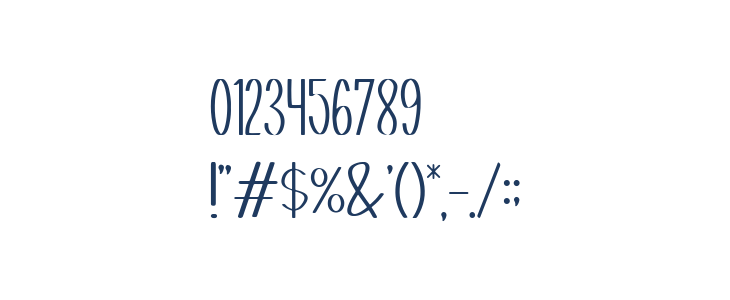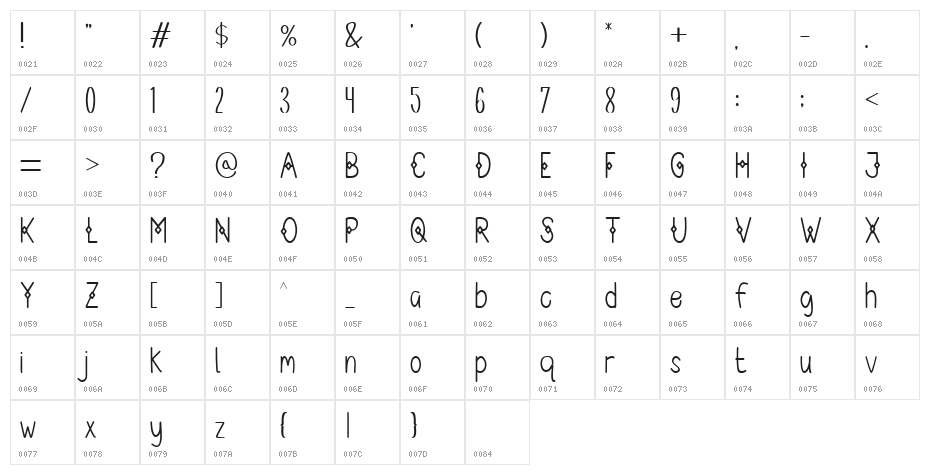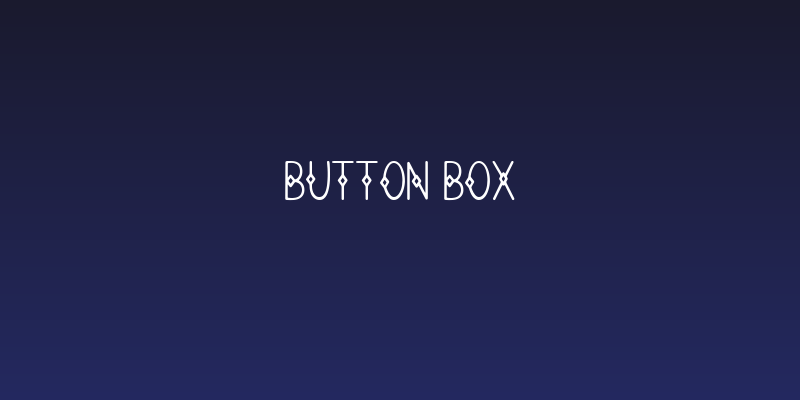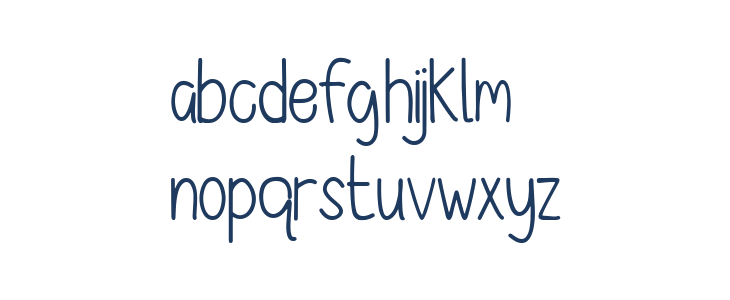
Button Box Font
Button Box Description
This font features a playful and decorative style with unique geometric elements integrated into the letterforms. The uppercase letters are characterized by symmetrical shapes and diamond-like embellishments, creating a distinct and eye-catching appearance. The lowercase letters maintain a more casual and handwritten feel, providing a nice contrast to the structured uppercase. Numbers and special characters follow the same decorative theme, ensuring consistency throughout. The overall design is both whimsical and modern, making it suitable for creative projects that require a touch of uniqueness.
| Use Case | Logos, Headlines, Posters |
| Proposed Projects | Ideal for children's books, playful branding, creative posters, and unique invitations. |